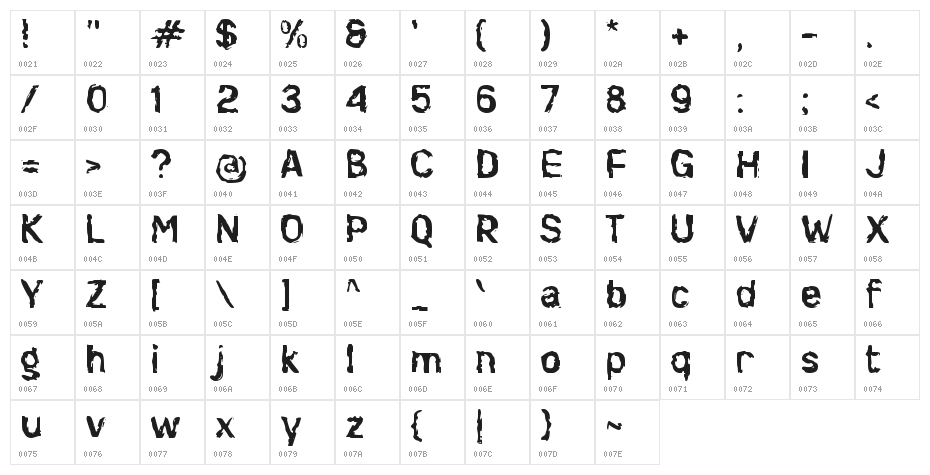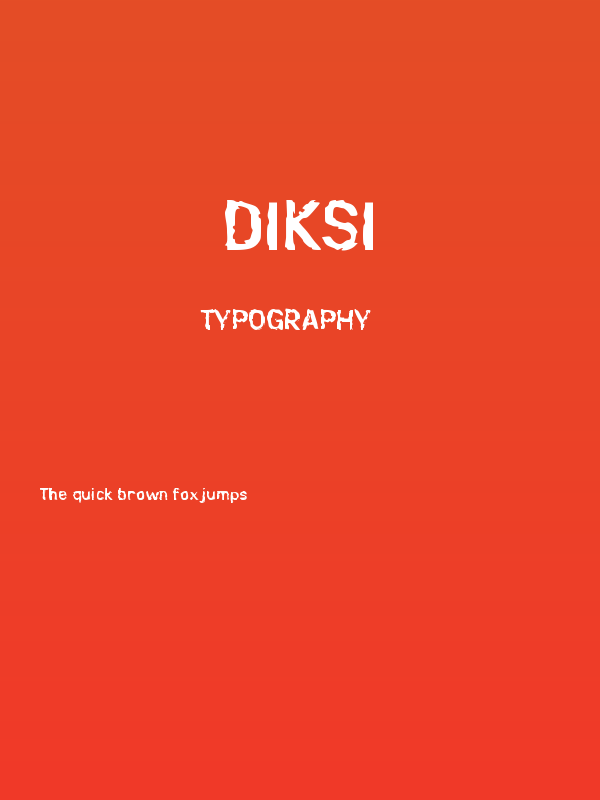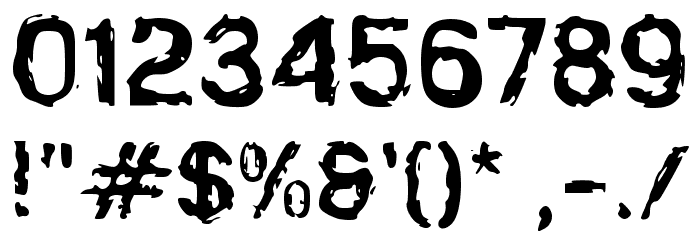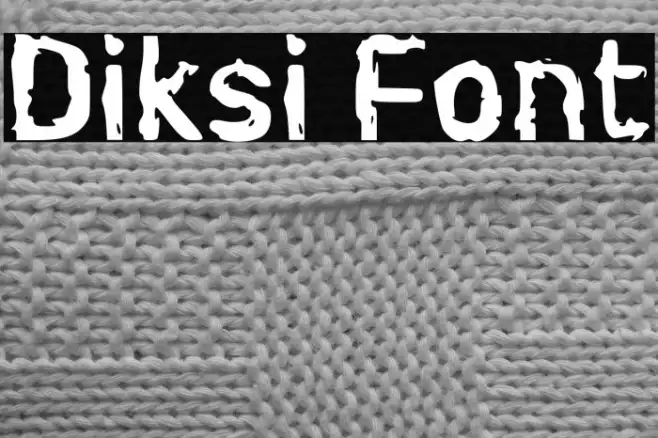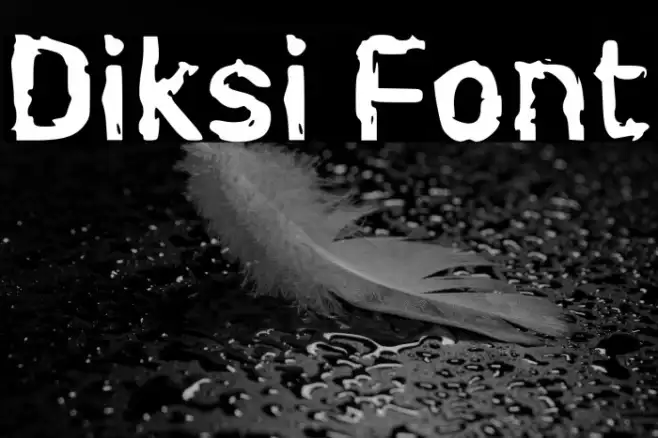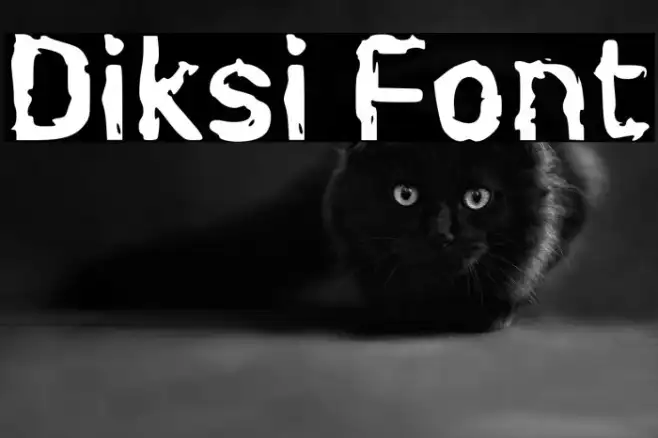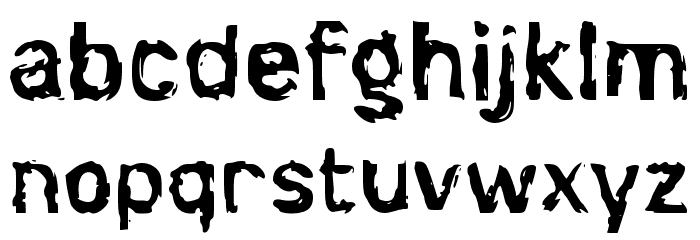
Diksi Font
Diksi Description
This font features a rugged and distressed appearance, with irregular edges and a bold presence. The characters appear as if they have been eroded or weathered, giving them a unique, grunge-like aesthetic. The uppercase and lowercase letters maintain a consistent style, with each character displaying a rough texture that suggests a hand-crafted or organic origin. The numerals and special characters follow the same design principles, ensuring a cohesive look across all glyphs. This font's distinctive style makes it stand out, ideal for projects that require a bold and unconventional typeface.
| Overall Style | Grunge, Distressed |
| Proposed Projects | Ideal for album covers, posters, branding for edgy or alternative products, and any design needing a bold, unconventional typeface. |